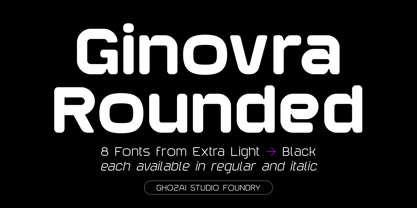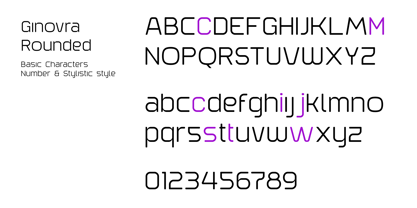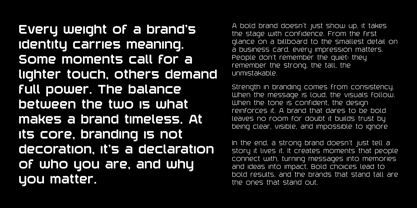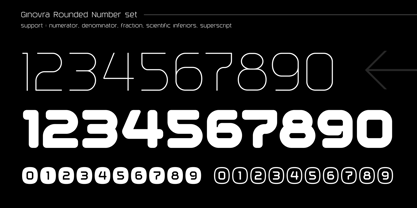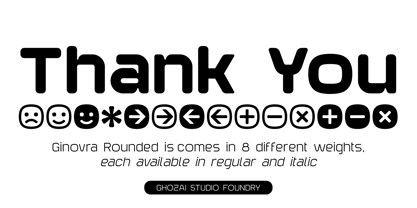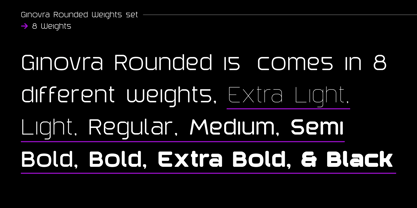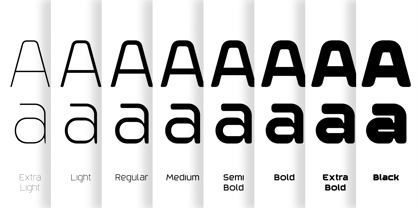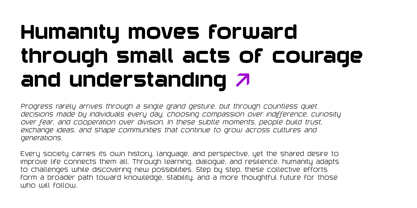
Ginovra Rounded
by Ghozai Studio
The Ginovra Rounded Font Family was designed by Manzur Ghozaali and published by Ghozai Studio. Ginovra Rounded contains 16 styles and family package options. More about this family
Ginovra Rounded is a versatile rounded sans serif font family featuring 8 weights, from Extra Light to Black, with each weight available in both regular and italic styles. This extensive range of weights, complemented by a rich set of symbols, OpenType features, and multilingual glyph support, ensures that Ginovra Rounded caters to diverse design needs across various languages. Its modern, clean, and bold aesthetic makes it ideal for a wide array of applications, including display, branding, signage, festival posters, sports, and more. Whether crafting impactful headlines, distinctive logos, or clear signage, Ginovra Rounded seamlessly combines style with functionality. Its adaptability to various design styles positions it as the perfect choice for projects requiring a bold and contemporary touch.
Designers: Manzur Ghozaali
Foundry: Ghozai Studio